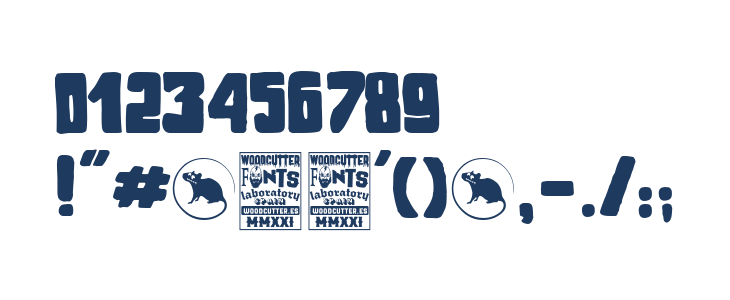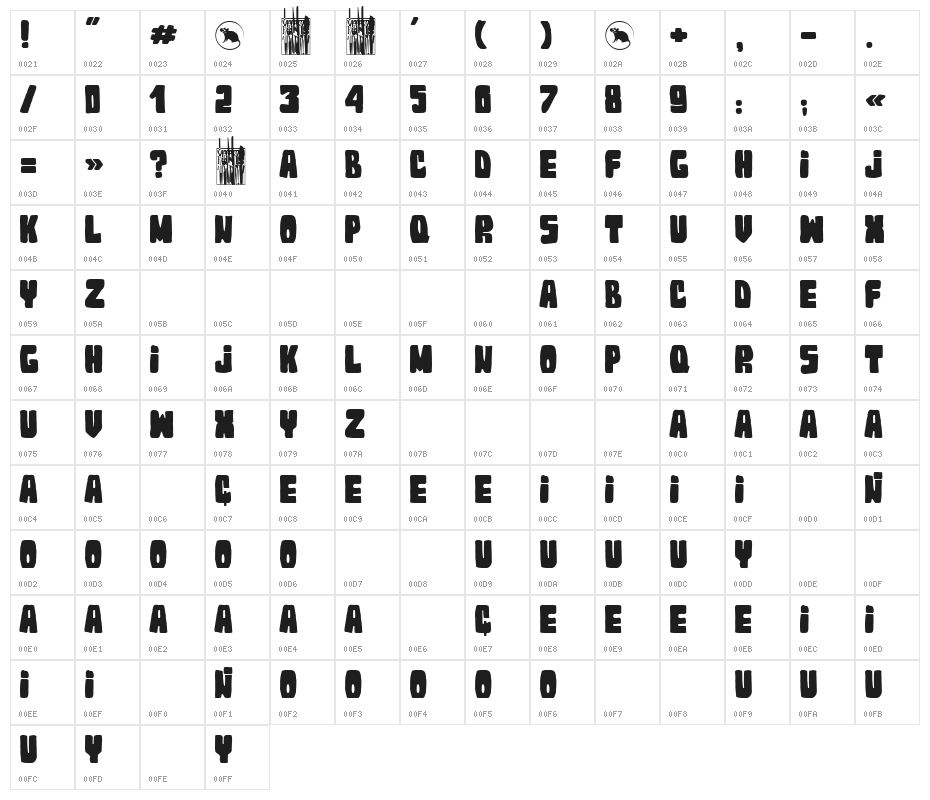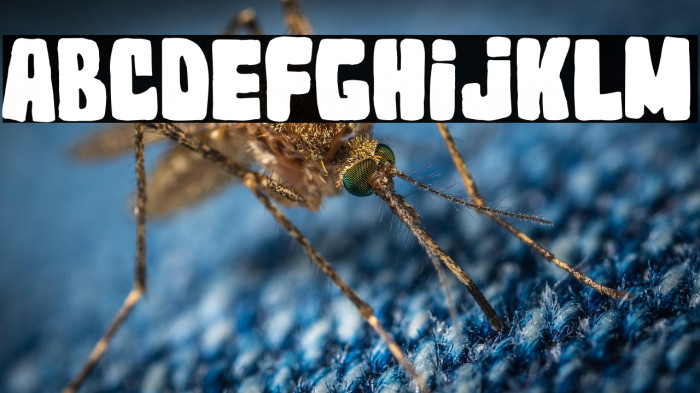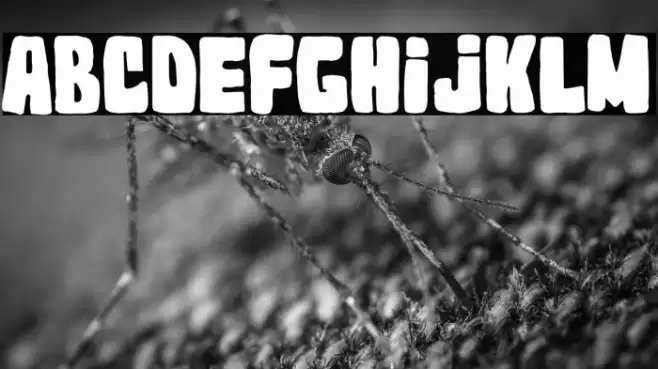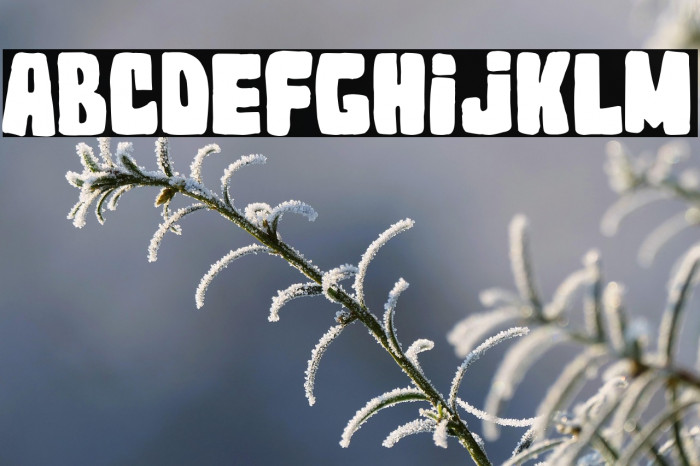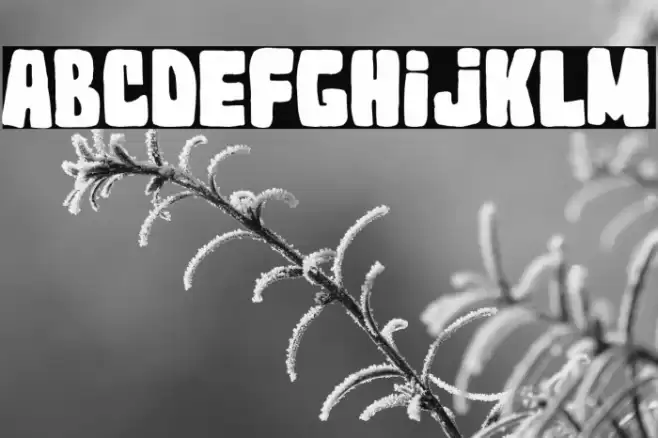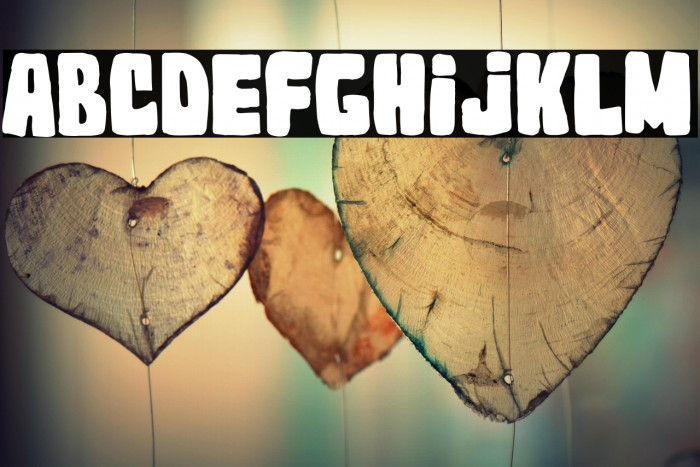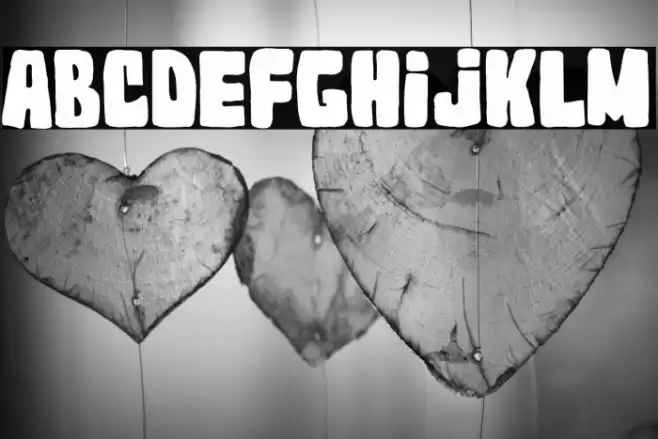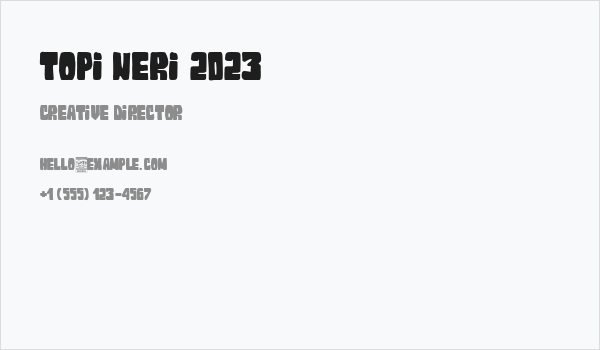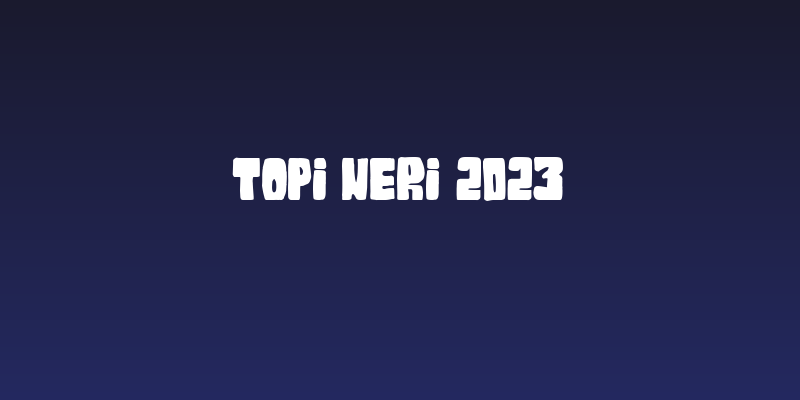
Topi Neri 2023 Font
Topi Neri 2023 Description
This font features a bold and chunky design with a playful and slightly irregular appearance. The characters are heavily weighted, giving them a strong presence on the page. The strokes are thick and consistent, with minimal contrast, creating a uniform look across all characters. The font has a hand-drawn, organic feel, with rounded edges and a slightly uneven baseline, adding to its casual and approachable style. The numbers and special characters maintain the same boldness and playful characteristics, making them stand out effectively. This font is ideal for projects that require a fun and eye-catching display typeface.
| Overall Style | Playful, Casual |
| Proposed Projects | Perfect for posters, children's books, logos, and branding that require a fun and bold display typeface. |